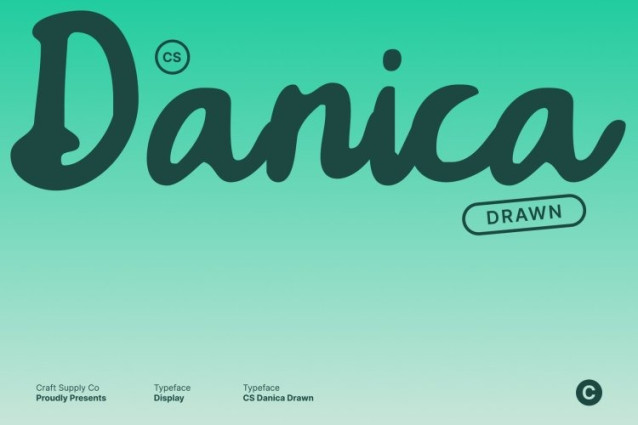
CS Danica Drawn Font This is a delicate handwritten script font crafted to express creativity and individuality. Designed with graceful strokes and naturally flowing connections, this font delivers an authentic drawn handwriting feel that is both personal and refined. Its expressive curves and subtle details give each letter an intentional, artistic presence.
Creative Flourishes with Refined Detail
The charm of this font lies in its carefully designed flourishes and organic movement. Each character flows smoothly into the next, creating a balanced rhythm that feels elegant yet creative. The drawn texture enhances its handcrafted quality, adding personality without overpowering the overall composition.
Delicate Style for Elegant Visual Storytelling
With its soft and expressive style, this font is ideal for designs centered on emotion, beauty, and storytelling. The handwritten appearance conveys warmth and authenticity, making it perfect for layouts that aim to feel intimate, thoughtful, and visually graceful. It works beautifully as both a primary typeface and a complementary accent.
Perfect for Branding, Invitations, and Fashion Graphics
This is well suited for branding, invitations, fashion graphics, packaging, and editorial designs. Its elegant handwritten charm makes it especially appealing for beauty brands, wedding stationery, lifestyle products, and boutique visuals that seek a refined yet artistic identity.